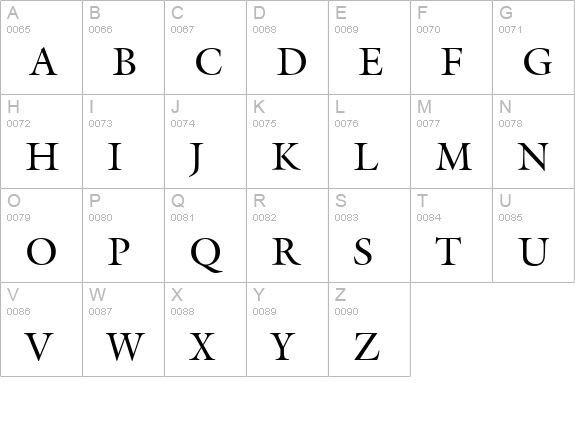
Gareth-Regular Font Details
Gareth-Regular is the standard, neutral variant in the Gareth typeface family \xE2\x80\x94 well suited to general body text, paragraphs, and standard typographic work.
Gareth-Regular font is a versatile and modern typeface that exudes elegance and sophistication. With its clean lines and balanced proportions, this font is perfect for a wide range of design projects, from branding to editorial design. The classic yet contemporary style of Gareth-Regular font makes it a timeless choice for any creative project. Best of all, Gareth-Regular font is completely free to download at FontsMarket.com. This means you can easily access this high-quality font without any cost, making it a valuable addition to your font library. Whether you're a professional designer or a hobbyist, Gareth-Regular font is a must-have for your typographic toolkit. Download it today and elevate your designs with this stylish and versatile typeface.